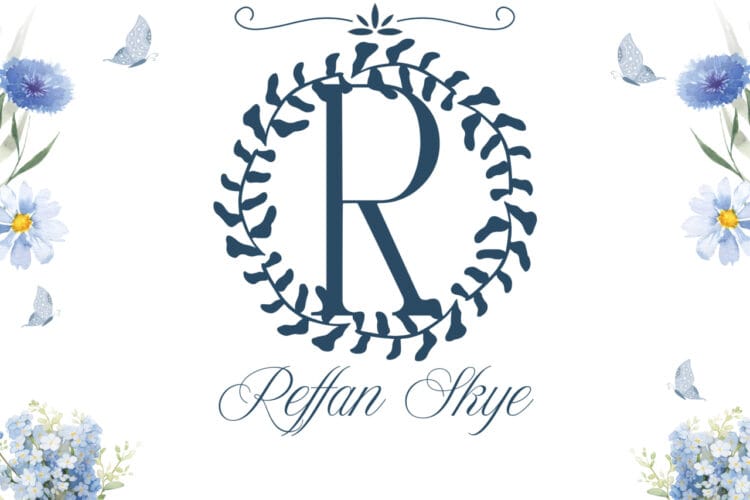
Meet Herbalique Monogram Font
Herbalique Monogram turns simple initials into calm, botanical emblems inspired by herbs, leaves, and natural balance. The letter shapes feel soft and organic, yet remain clean and readable at any size. Because counters stay open, small tags print crisp while larger marks look refined and intentional. Use it for wellness brands, apothecary labels, wedding suites, boutique logos, stationery, and premium packaging. As a result, your designs feel natural, thoughtful, and quietly elegant.
Why Herbalique Monogram sells
First, setup is fast in Canva, Photoshop, and Illustrator. Next, the clean outlines cut and print beautifully for foil, emboss, deboss, engraving, laser, vinyl, DTF, and sublimation. Then layouts come together quickly because spacing is steady and predictable. Moreover, the botanical tone fits popular niches like wellness, handmade goods, and eco branding. Therefore, your products feel on-trend while staying timeless.
Fast layouts with the Herbalique Monogram Font
Start with a single initial and let white space do the work. After that, add names or dates using a separate supporting font. Because Herbalique holds shape at small sizes, labels, stickers, jars, and tags stay clear. In addition, it pairs beautifully with wreath frames, oval borders, line dividers, and subtle leaf accents, so full sets come together quickly. Finally, save palette pairs like sage & cream, olive & linen, charcoal & herbal green, or sand & moss to reuse across collections.
Creative uses and quick wins
Wellness and apothecary logo seals
Wedding initials and keepsake gifts
Candle, soap, tea, and skincare labels
Stationery, tags, and boutique packaging
Design tips for Herbalique Monogram Font
Keep the monogram as the focal point and use a separate font for extra text. Also, give it breathing room so organic details stay readable. For a premium finish, try embossing, letterpress, or soft foil on textured stock. Finally, export at 300 DPI for print and at 2× size for web so edges stay smooth everywhere.